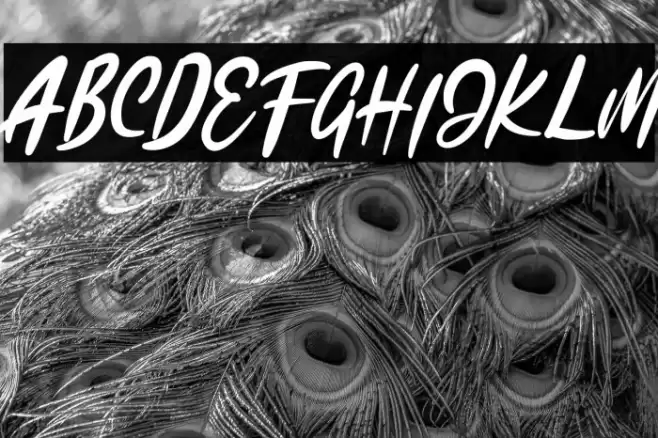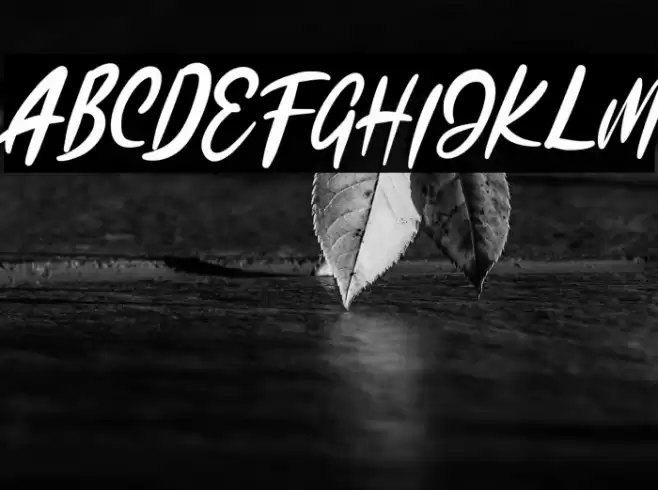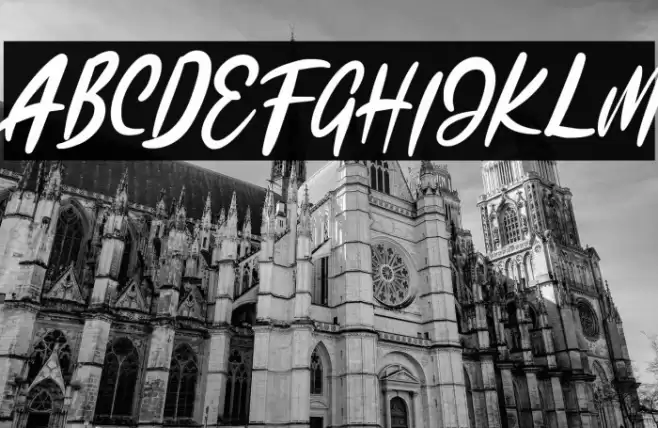
KadutaFREE Font
KadutaFREE Description
This font features a bold and expressive script style, characterized by its fluid and dynamic strokes. The letters are connected, giving it a handwritten appearance that is both elegant and casual. The uppercase letters are tall and slightly slanted, while the lowercase letters maintain a consistent flow with occasional loops and flourishes. The overall design is modern yet retains a touch of classic calligraphy, making it versatile for various design needs. The font's boldness ensures readability while adding a personal touch to any text.
A bold, expressive script font with a modern, handwritten style from Uncategorized fonts.
- Font: KadutaFREE
- Proposed Projects: Ideal for branding, invitations, greeting cards, and social media graphics.
- Use Case: Logos, Headlines, Invitations